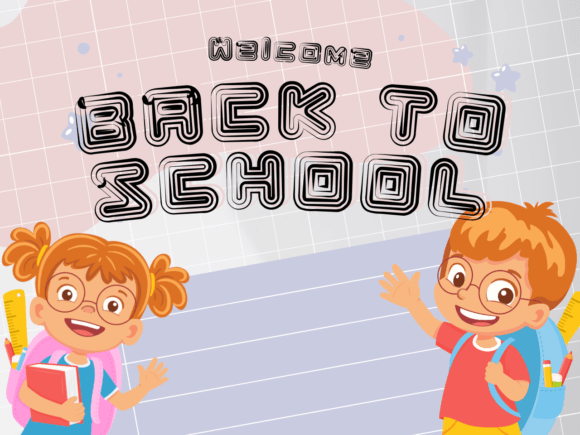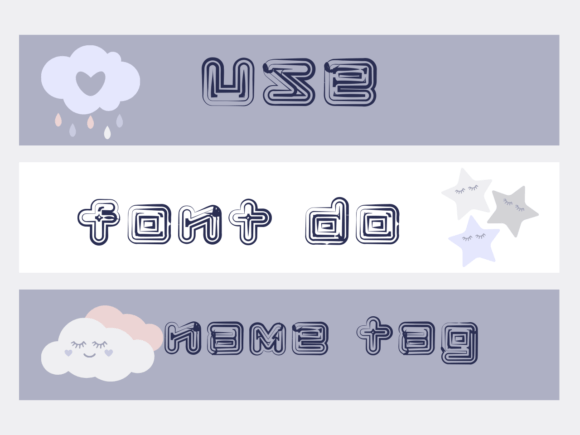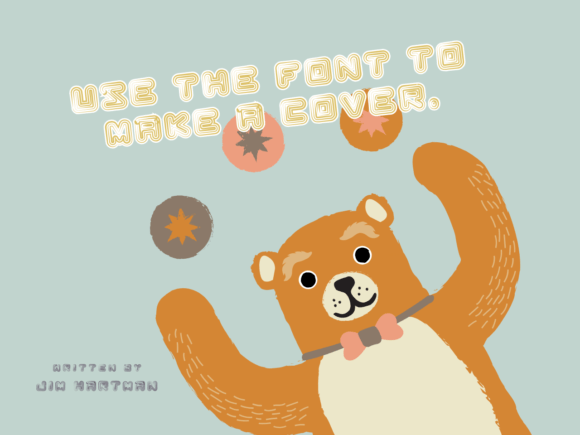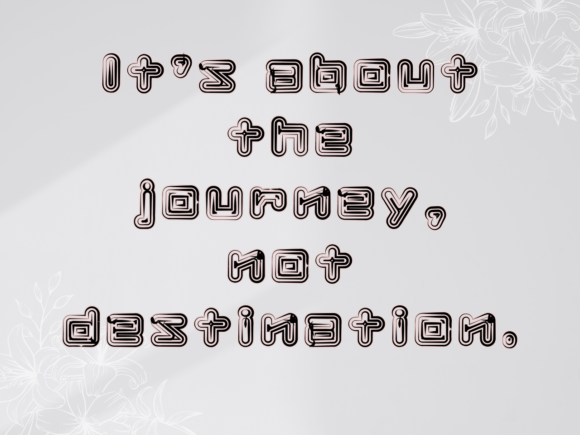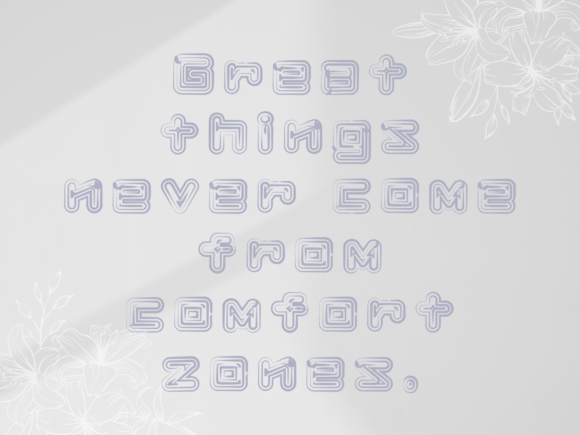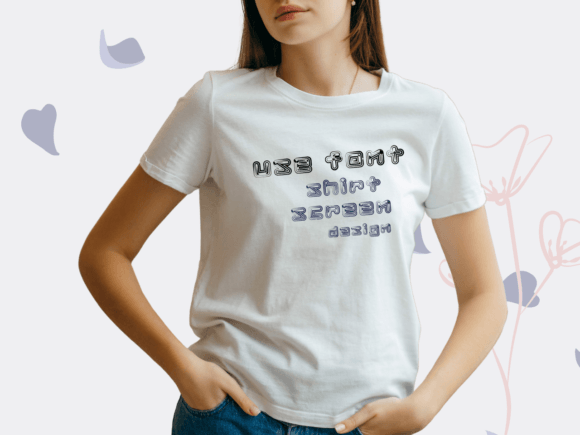
Introduction to Middle Sheep Font
As a designer, have you ever found yourself stuck in a creative rut, searching for that perfect design element to elevate your project? Perhaps you’re brainstorming ideas for a new logo, or experimenting with different typography styles for a handwritten note. For many of us, the key to unlocking our creativity lies in discovering unique design resources that inspire us to think outside the box.
That’s where the Middle Sheep Font comes in – a one-of-a-kind, high-quality font designed to add a touch of distinctiveness to your work. Whether you’re a graphic designer, a writer, or a creative enthusiast, this font is sure to become your go-to design resource for adding a personal touch to your projects.
Key Features of Middle Sheep Font
- High-quality design resource perfect for creative projects, offering a unique and professional touch.
- Comes with a transparent background, making it easy to integrate with various design elements and backgrounds.
- Unique characteristics include a modern, minimalist aesthetic and a wide range of customization options.
- Perfect for designers and artists working on creative projects, from branding and logos to digital art and print materials.
Honest Review: Middle Sheep Font
As a designer, I’m always on the lookout for new and exciting fonts to enhance my creative projects. Recently, I stumbled upon the Middle Sheep Font, and I must say it’s a great addition to any design resource.
One of the standout features of this font is its high quality and versatility. It comes with a transparent background, making it perfect for overlaying on images or videos. The font itself is highly customizable, allowing you to adjust the size, color, and style to suit your needs.
What works well: ✨ The Middle Sheep Font is incredibly easy to use and integrates seamlessly with popular design software. The font also comes in a range of styles, from casual to formal, making it perfect for a variety of creative projects.
- High-quality and versatile font
- Customizable size, color, and style
Tips for Getting the Most Out of Middle Sheep Font
Experiment with different font sizes, colors, and combinations to achieve the desired look. Use the font in conjunction with other design elements to create a cohesive and visually appealing design.
The Middle Sheep Font is suitable for a wide range of creative projects, including branding, marketing materials, and educational resources. Its versatility and high quality make it an excellent design resource for both personal and professional projects.